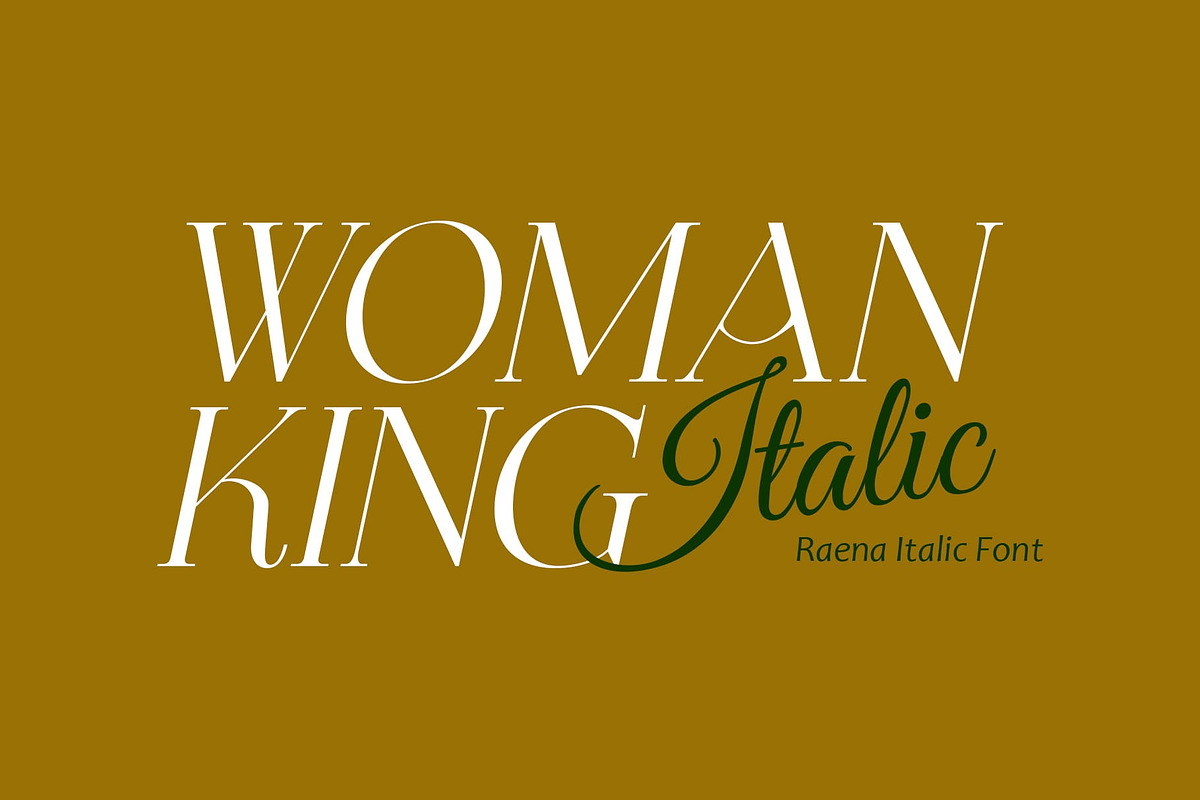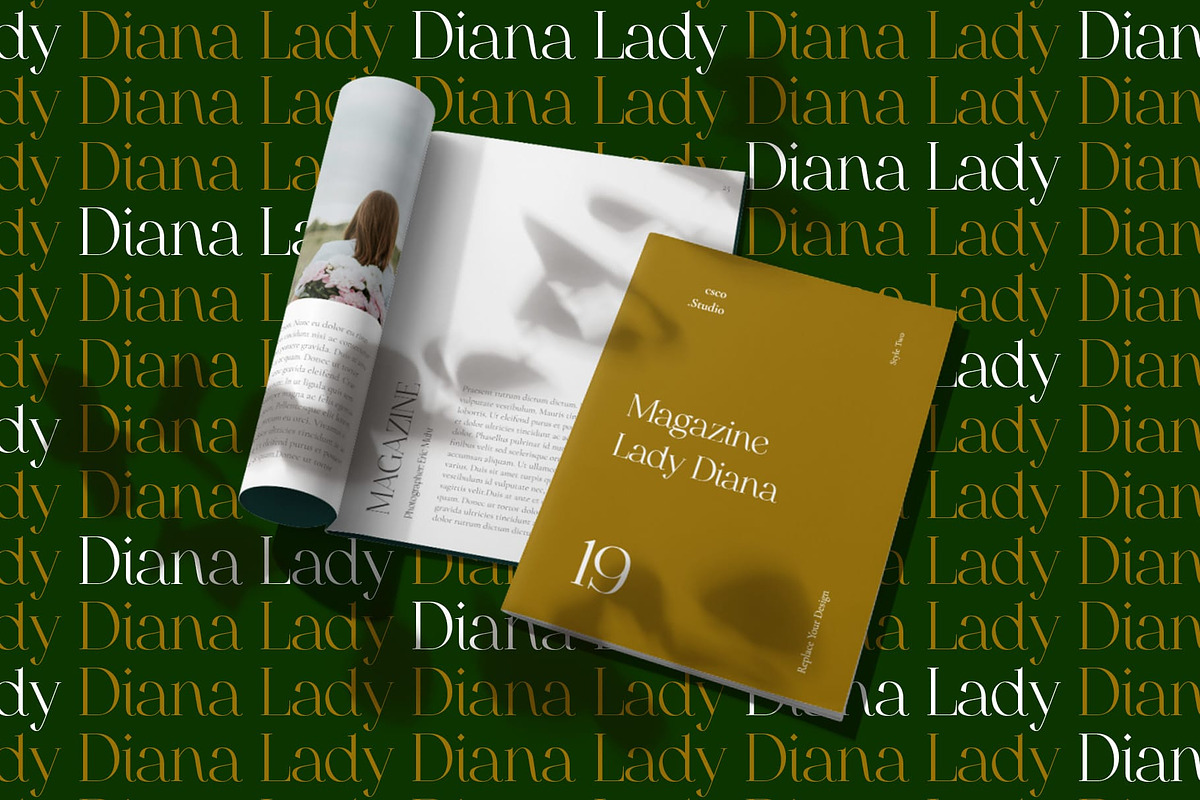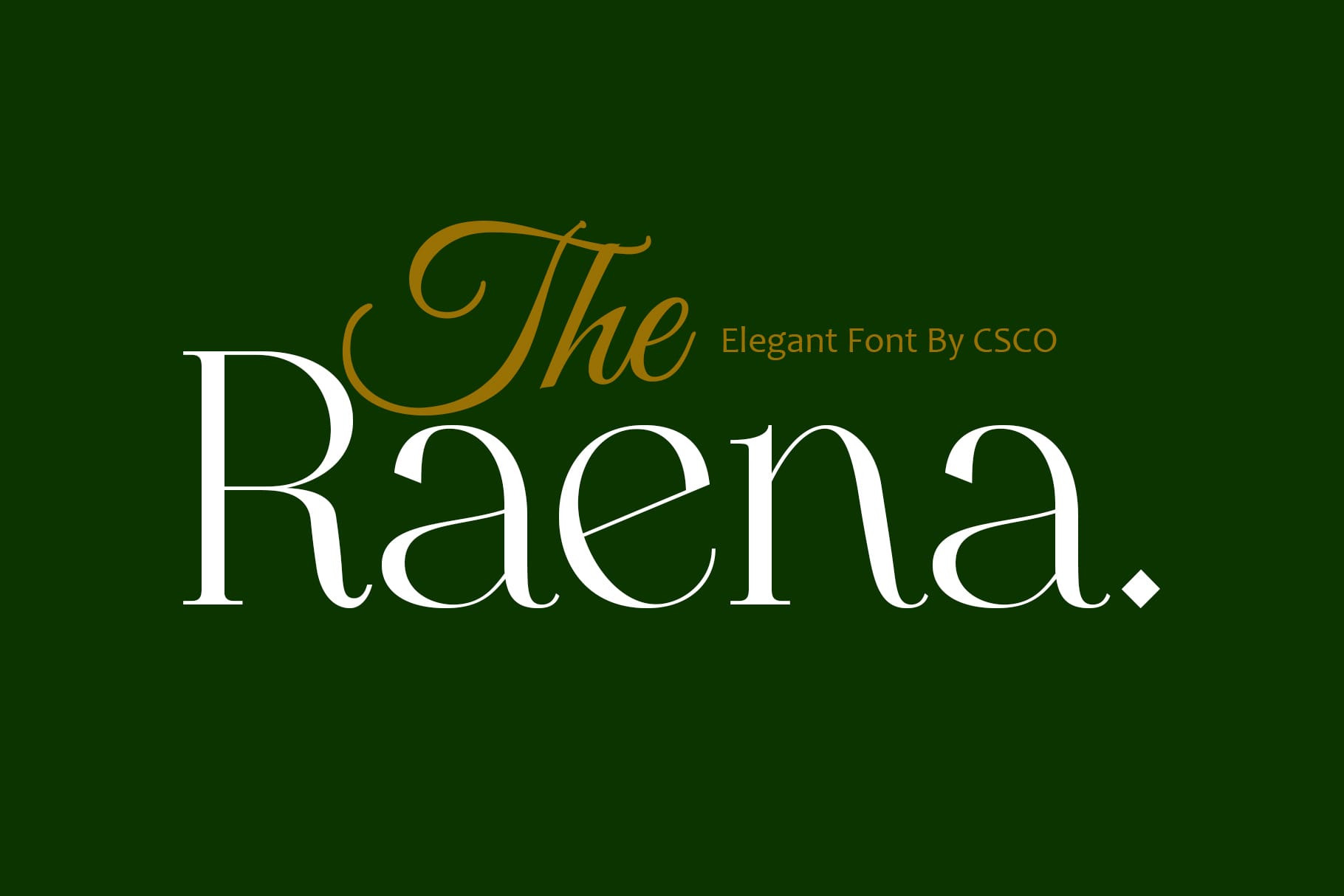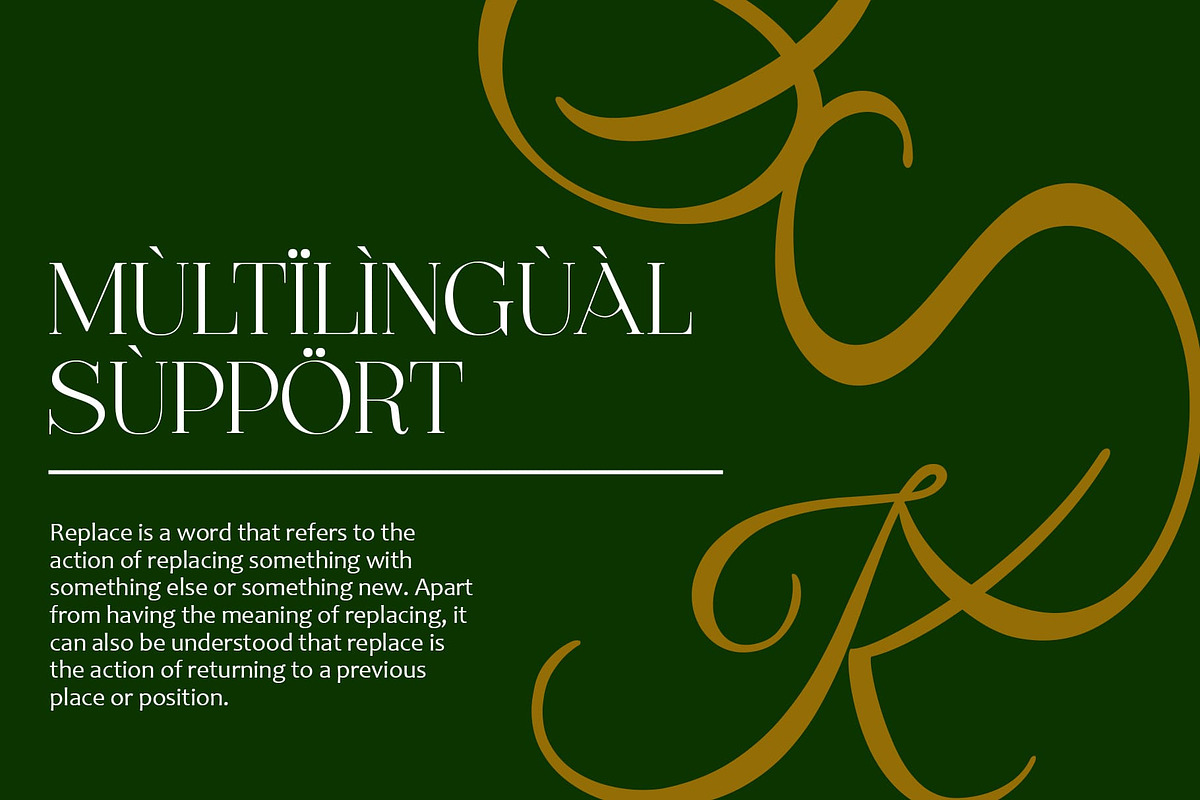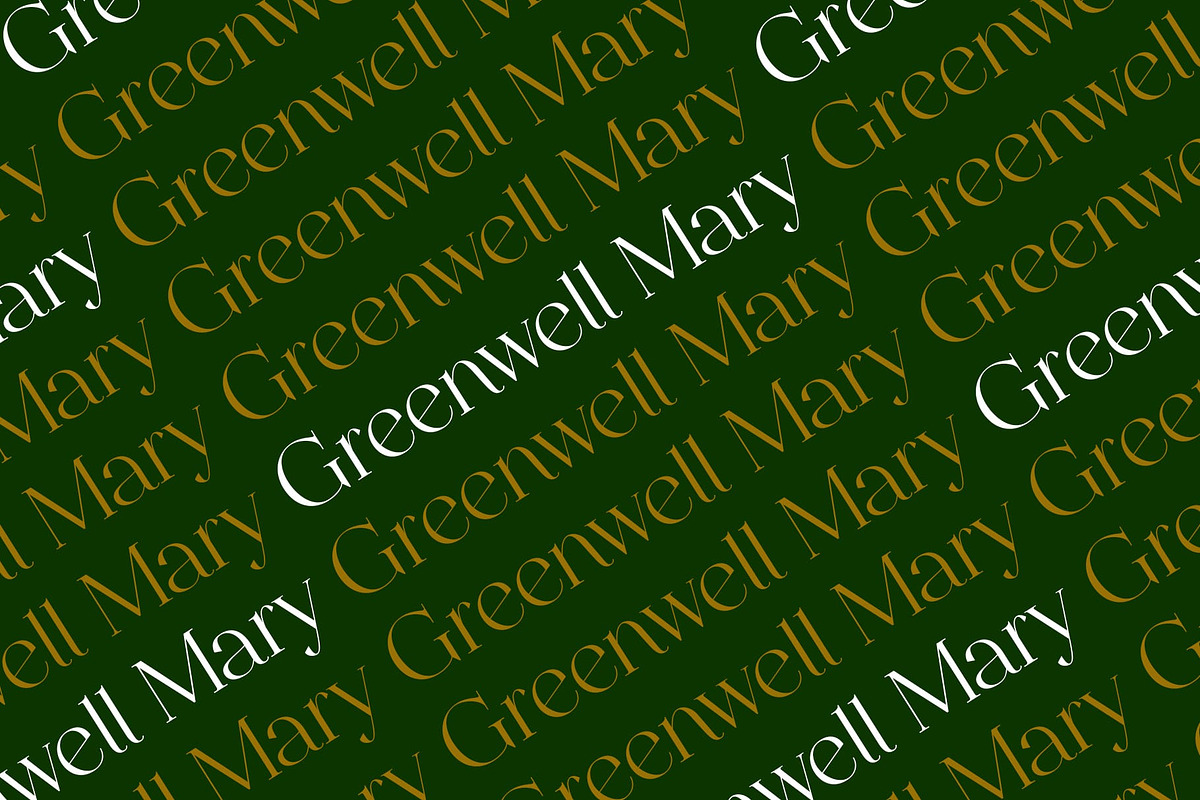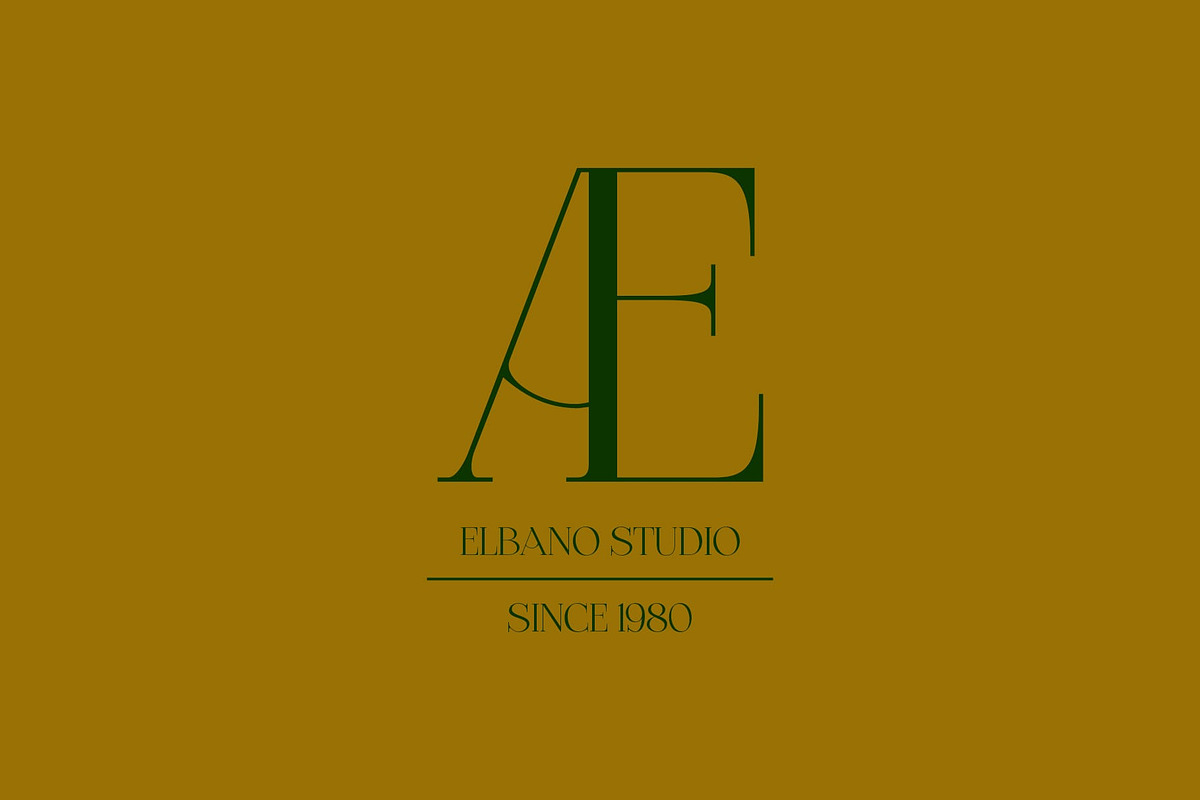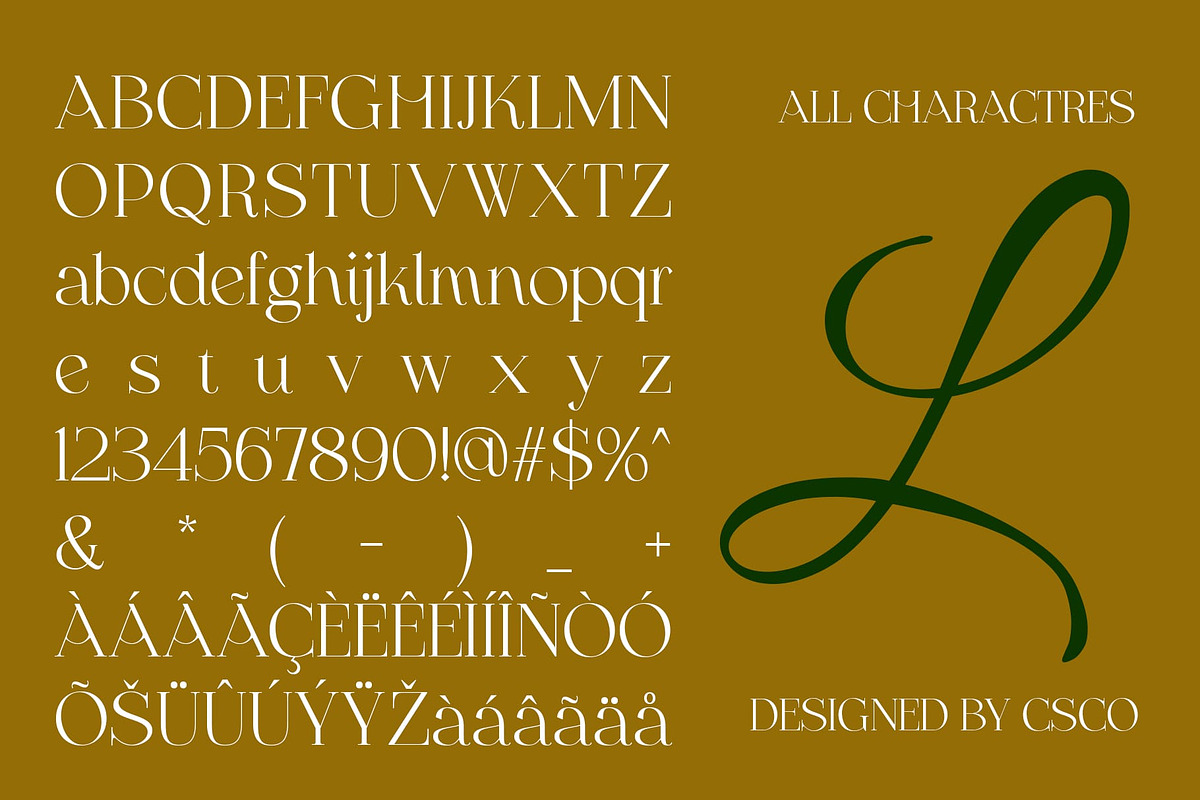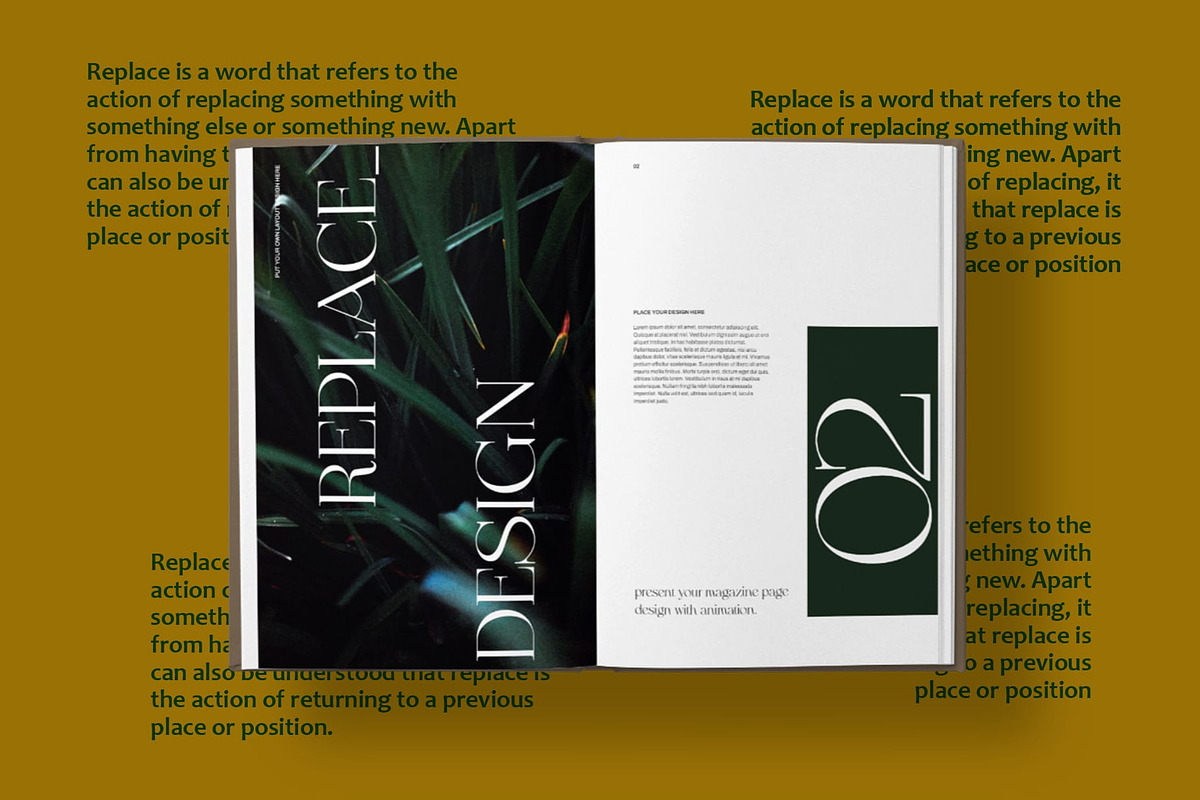
Raena – Elegant Font
Raena Font – Embodying Modern Elegance in Typography
Contemporary Elegance Raena, a font that seamlessly blends modern serif aesthetics with timeless elegance, is a testament to the power of sophisticated and refined typography.
Sleek and Stylish Design With its sleek serifs and stylish curves, Raena’s design exudes sophistication, making it an ideal choice for projects that demand a touch of contemporary elegance.
Versatile Application From editorial designs to luxury branding, Raena adapts effortlessly, adding a touch of refinement to every project it graces.
Unveiling Timeless Beauty Raena transcends trends, standing as a testament to the enduring beauty of elegant serif fonts, capturing attention with every letter and punctuation mark.
Conclusion Raena isn’t just a font; it’s a journey into the world of modern elegance. Elevate your designs with the timeless allure of Raena, where sophistication meets contemporary style, creating a lasting impact on any creative endeavor.
Features : Uppercase and lowercase characters Numerals and Punctuation (OpenType Standard) Accents (Supports Multilingual Characters) PUA Encoding You can use this typeface without needing any specialized software.